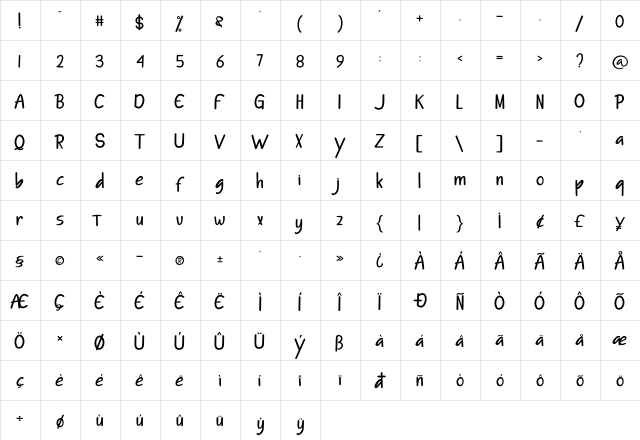
Dissert Regular
| Designer | Skiiller studio |
Design Context for Dissert Typeface
Dissert takes a measured approach to typography — its balanced proportions and neutral character make it a reliable workhorse for both digital and print work.